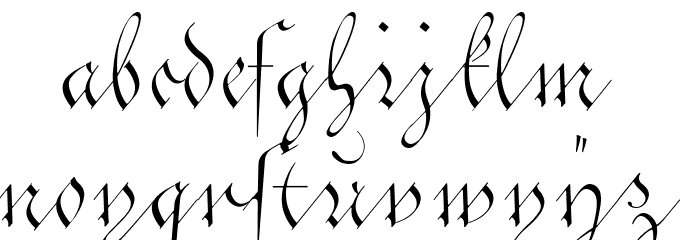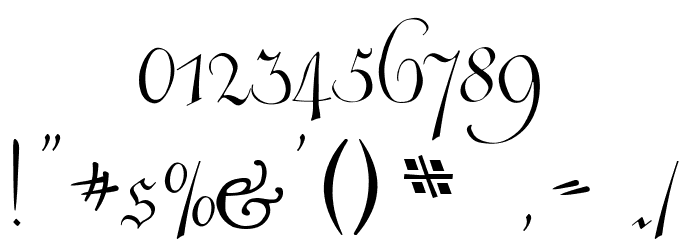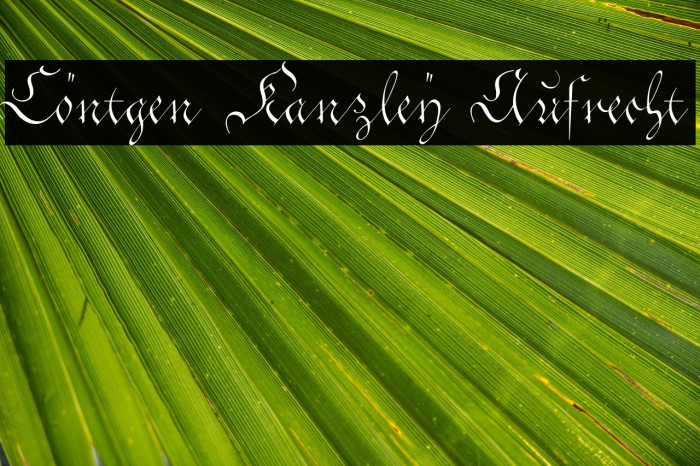
Cöntgen Kanzley Aufrecht Font
This font exudes a classic and elegant style, reminiscent of traditional calligraphy. The uppercase letters are ornate, with intricate flourishes and a sense of grandeur. The lowercase letters maintain a fluidity and grace, with sweeping curves and delicate lines. Numbers are designed with a similar attention to detail, offering a harmonious blend with the alphabet. Special characters are equally decorative, enhancing the overall aesthetic. The font's design is highly decorative, making it suitable for projects that require a touch of sophistication and historical charm.
A decorative, calligraphic font with ornate flourishes and classic elegance.
- Font: Cöntgen Kanzley Aufrecht
- Proposed Projects: Ideal for wedding invitations, formal event programs, historical documents, and luxury branding.
- Category: Script
- Overall Style: Classic
- Use Case: Logos, Invitations, Decorative headings